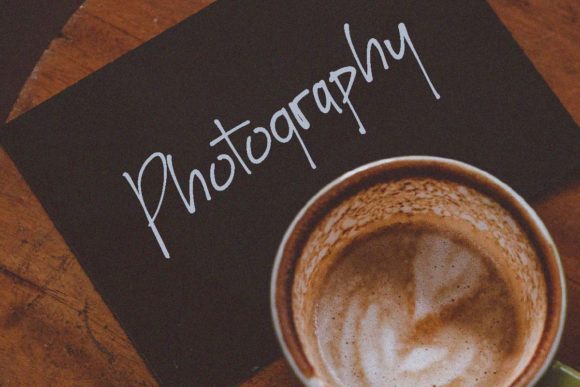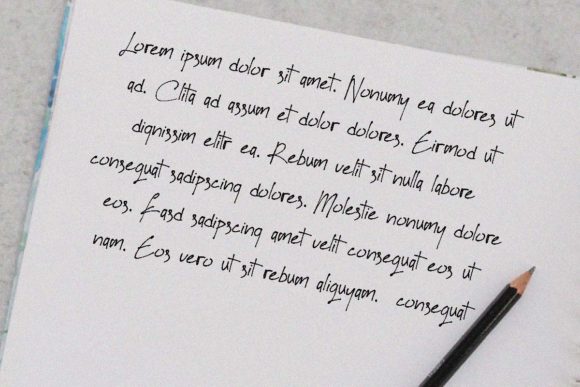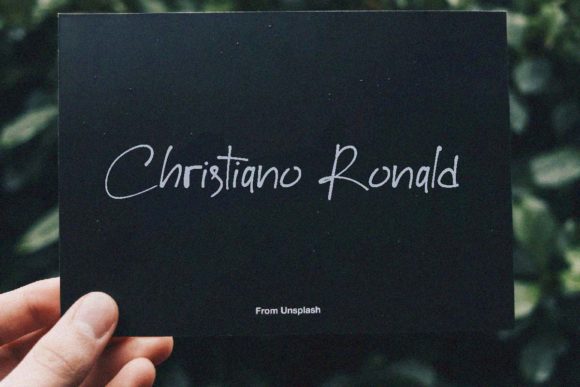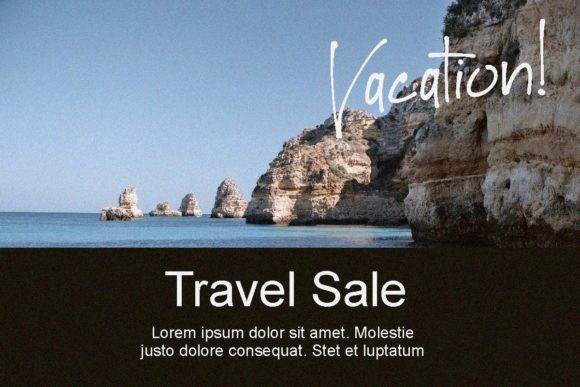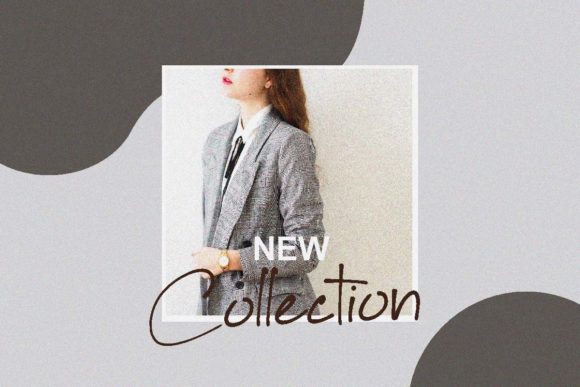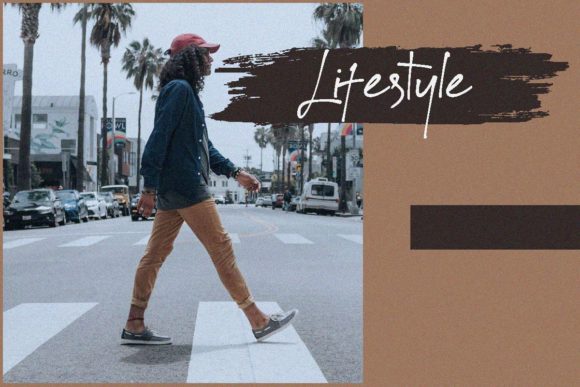
Introducing Bolpoint Note Font: Elevate Your Creativity with a Neat and Simple Handwritten Style
Are you a designer, crafter, or DIY enthusiast looking for a font that can add a personal touch to your creative projects? Look no further than Bolpoint Note Font, a beautiful and versatile handwritten font that’s perfect for a wide range of applications. In this article, we’ll explore the features and benefits of Bolpoint Note Font, and show you how it can help you turn your creative ideas into stunning works of art.
What is Bolpoint Note Font?
Bolpoint Note Font is a neat and simple handwritten font that’s designed to bring a touch of elegance and sophistication to your creative projects. With its clean lines, flowing curves, and charming character, this font is perfect for anyone looking for a unique and eye-catching way to express themselves. Whether you’re creating social media graphics, crafting DIY projects, or designing calligraphy scripts, Bolpoint Note Font is the perfect choice.
Key Features of Bolpoint Note Font
- Handwritten style: Bolpoint Note Font features a beautiful, handwritten style that’s perfect for adding a personal touch to your creative projects.
- Neat and simple: With its clean lines and simple design, this font is easy to read and versatile enough to use in a wide range of applications.
- Charming character: Bolpoint Note Font has a unique and charming character that adds a touch of elegance and sophistication to any project.
- Perfect for Instagram and social media: This font is perfect for creating eye-catching social media graphics, Instagram posts, and stories that will help you stand out from the crowd.
- Ideal for DIY projects: Bolpoint Note Font is also perfect for DIY enthusiasts who want to add a personal touch to their crafting projects, such as handmade cards, gift tags, and more.
Benefits of Using Bolpoint Note Font
So why choose Bolpoint Note Font for your creative projects? Here are just a few benefits of using this amazing font:
- Add a personal touch: With Bolpoint Note Font, you can add a personal touch to your creative projects and make them stand out from the crowd.
- Versatile: Bolpoint Note Font is versatile enough to use in a wide range of applications, from social media graphics to DIY projects.
- High-quality design: This font features a high-quality design that’s perfect for printing or digital use.
In conclusion, Bolpoint Note Font is a beautiful and versatile handwritten font that’s perfect for designers, crafters, and DIY enthusiasts. With its neat and simple design, charming character, and high-quality features, this font is sure to elevate your creativity and turn your ideas into stunning works of art. So why wait? Download Bolpoint Note Font today and start creating!